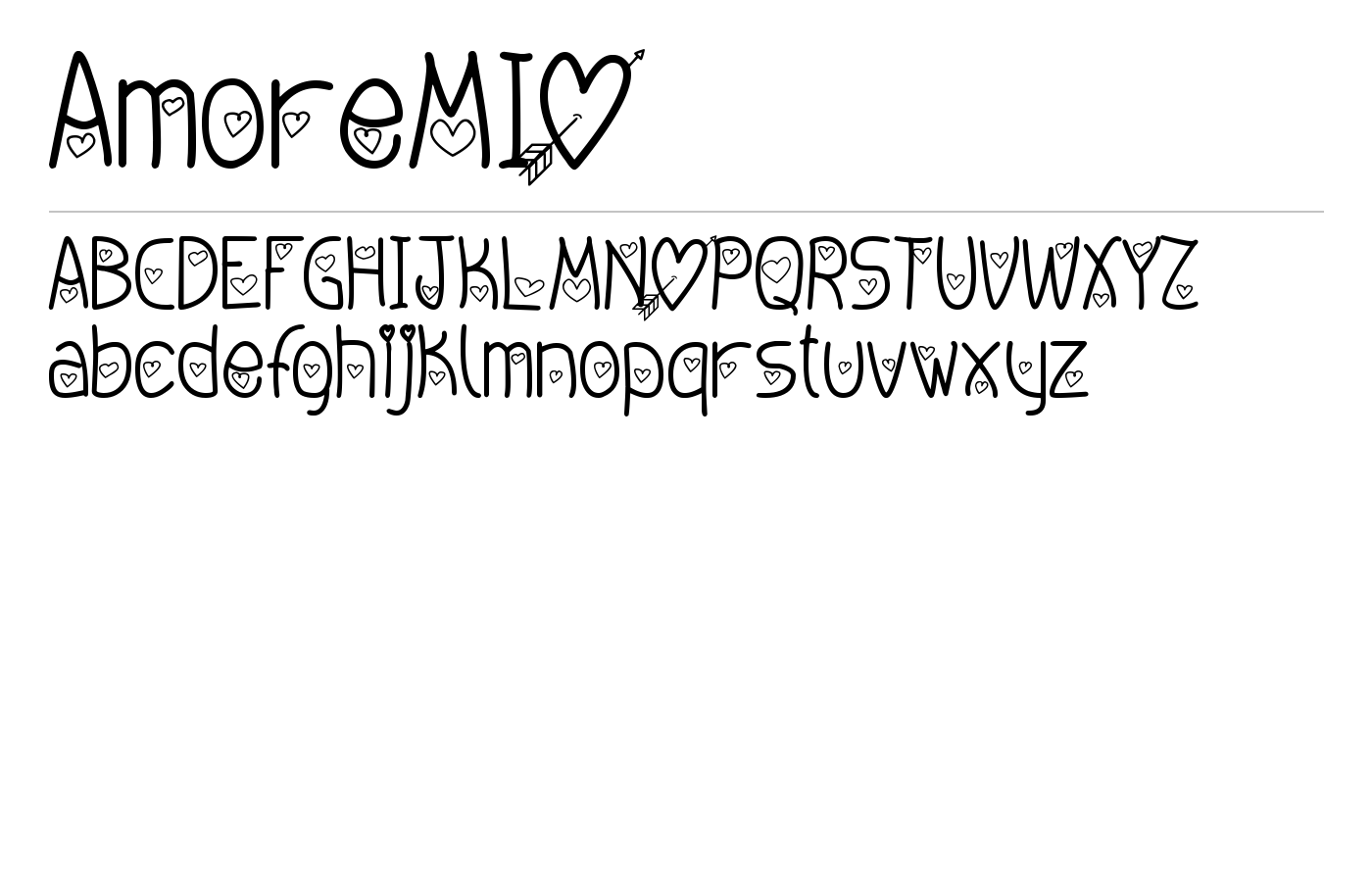
AmoreMIO is a playful, hand-drawn sans serif font characterized by its tall, narrow letterforms adorned with whimsical heart-shaped details, giving it a light and cheerful feel. It works wonderfully for romantic or fun designs like greeting cards, invitations, and kids’ projects where a quirky and affectionate vibe is desired. This font's unique style adds a charming touch to headlines and decorative text but is best used sparingly due to its highly decorative nature.
AmoreMIO Font
About AmoreMIO Font